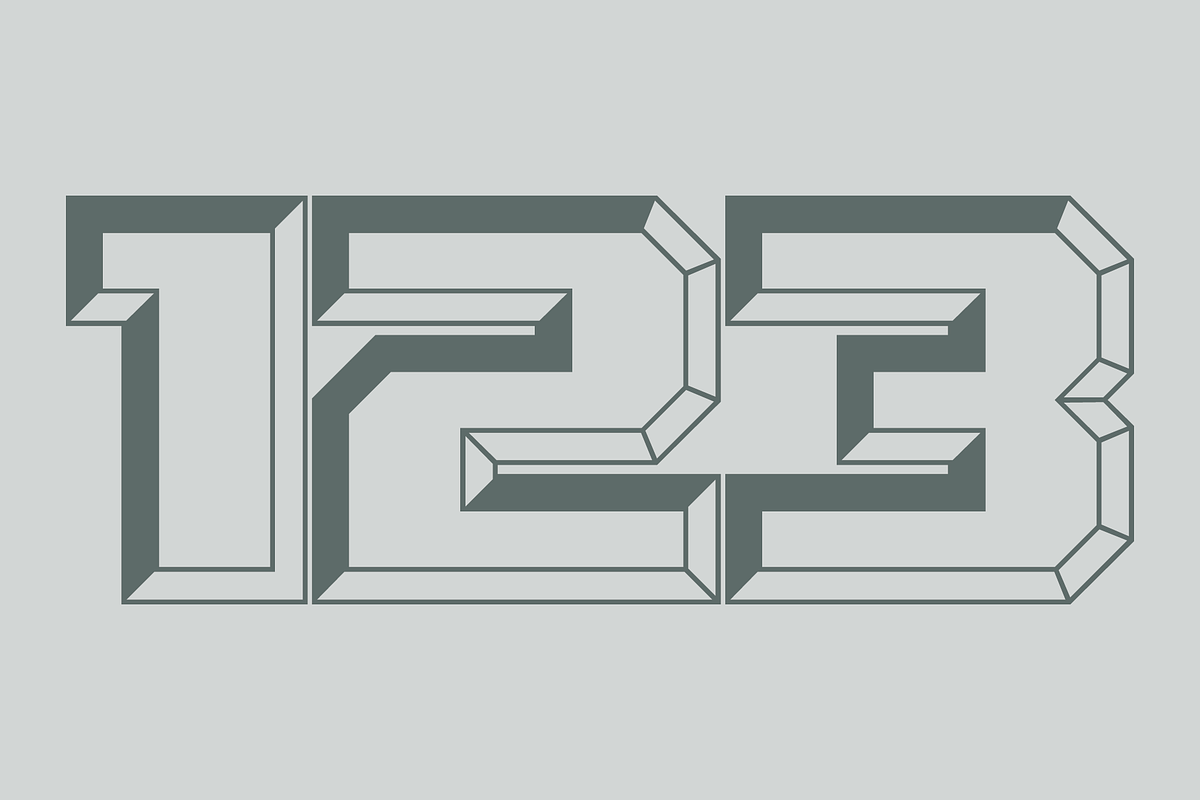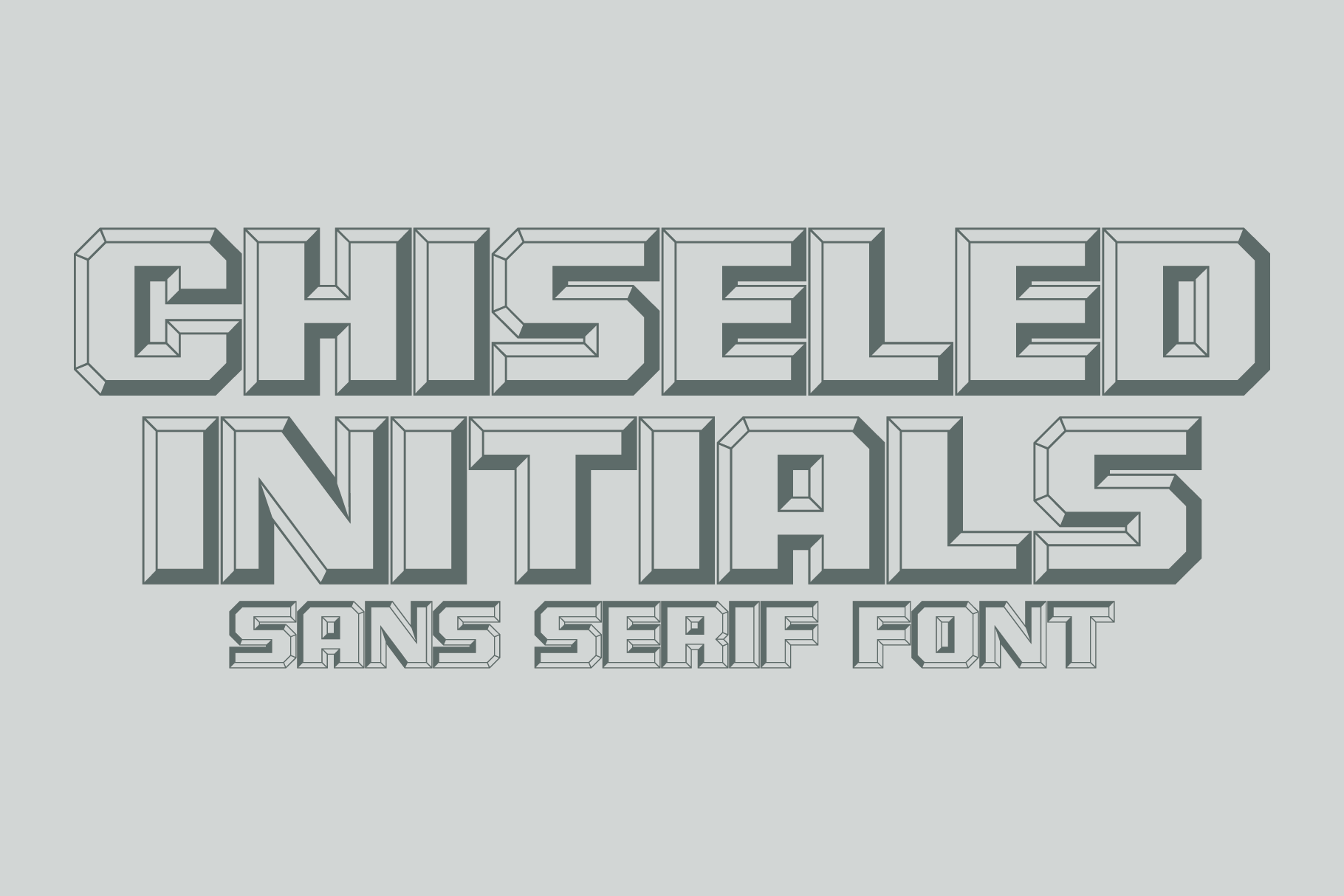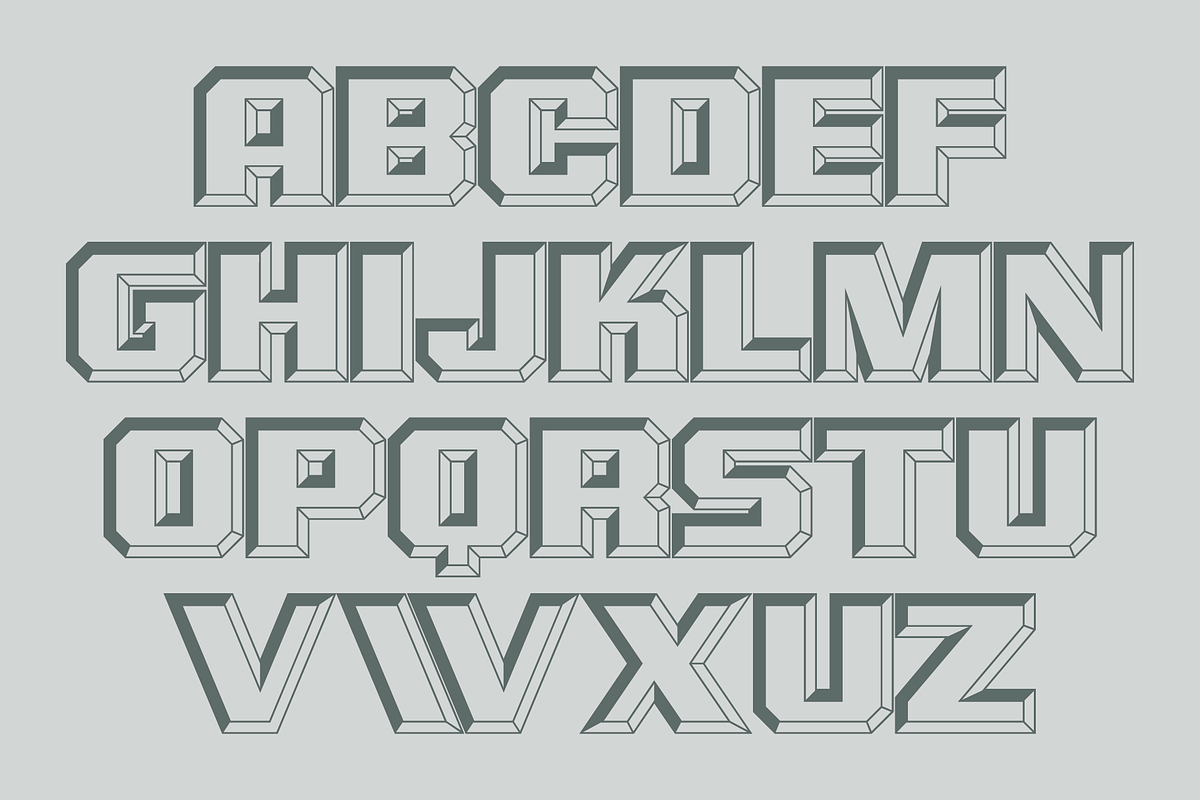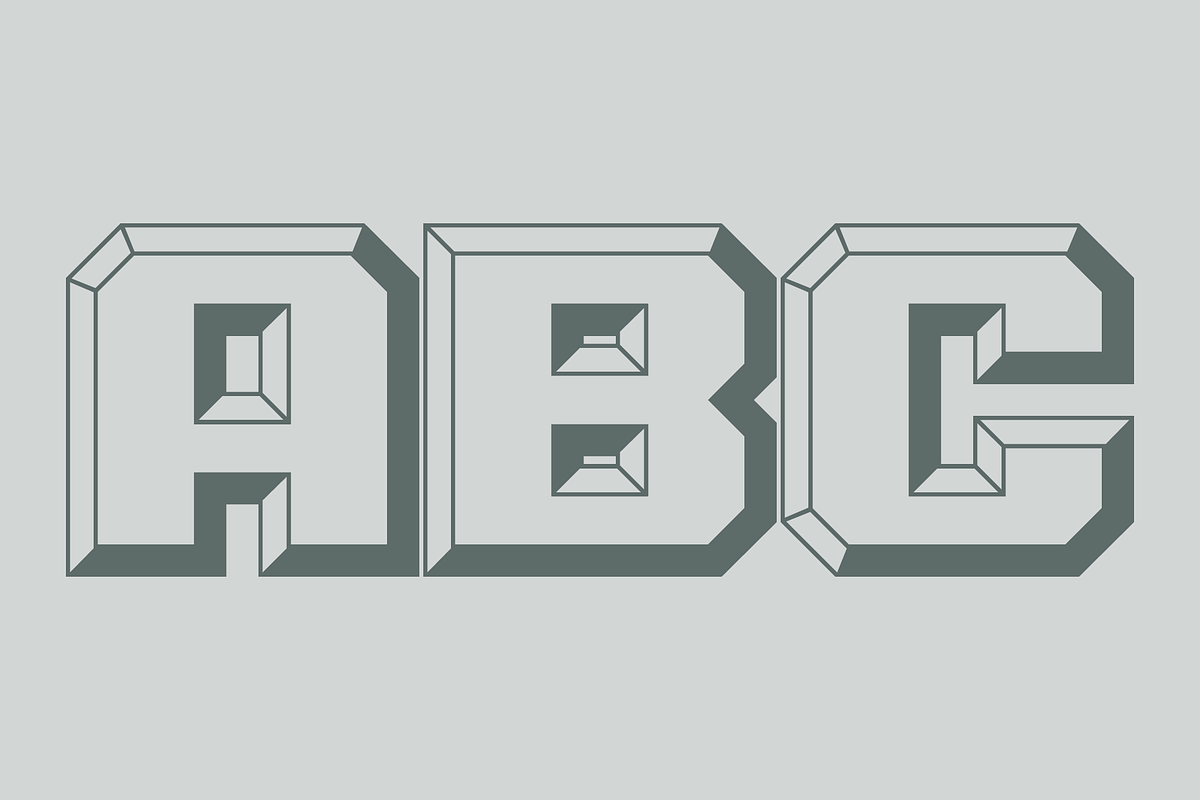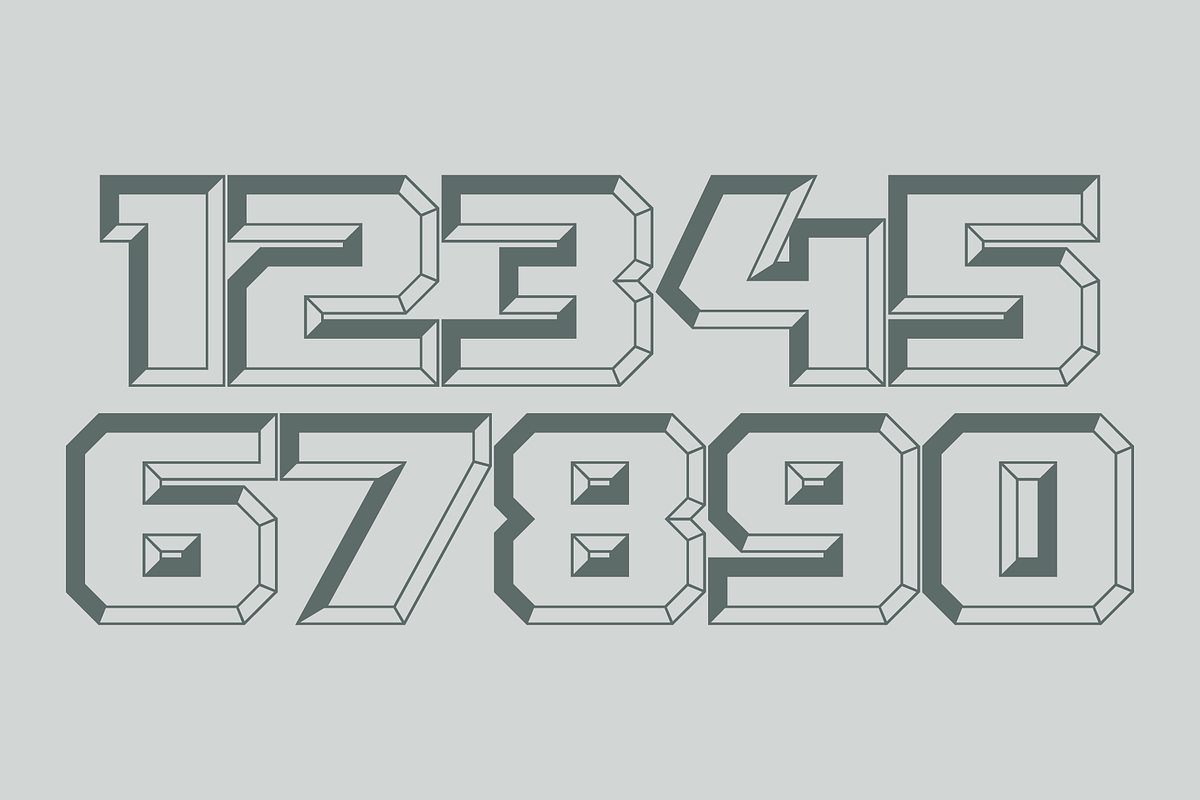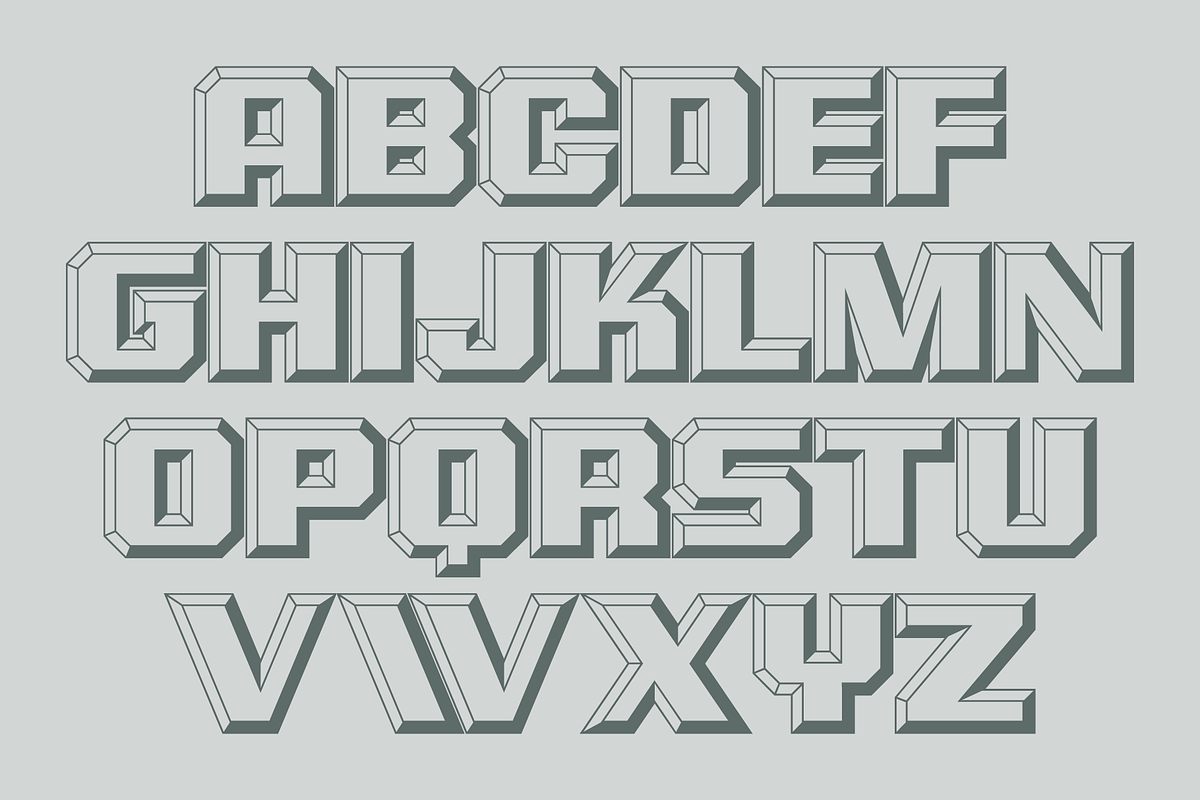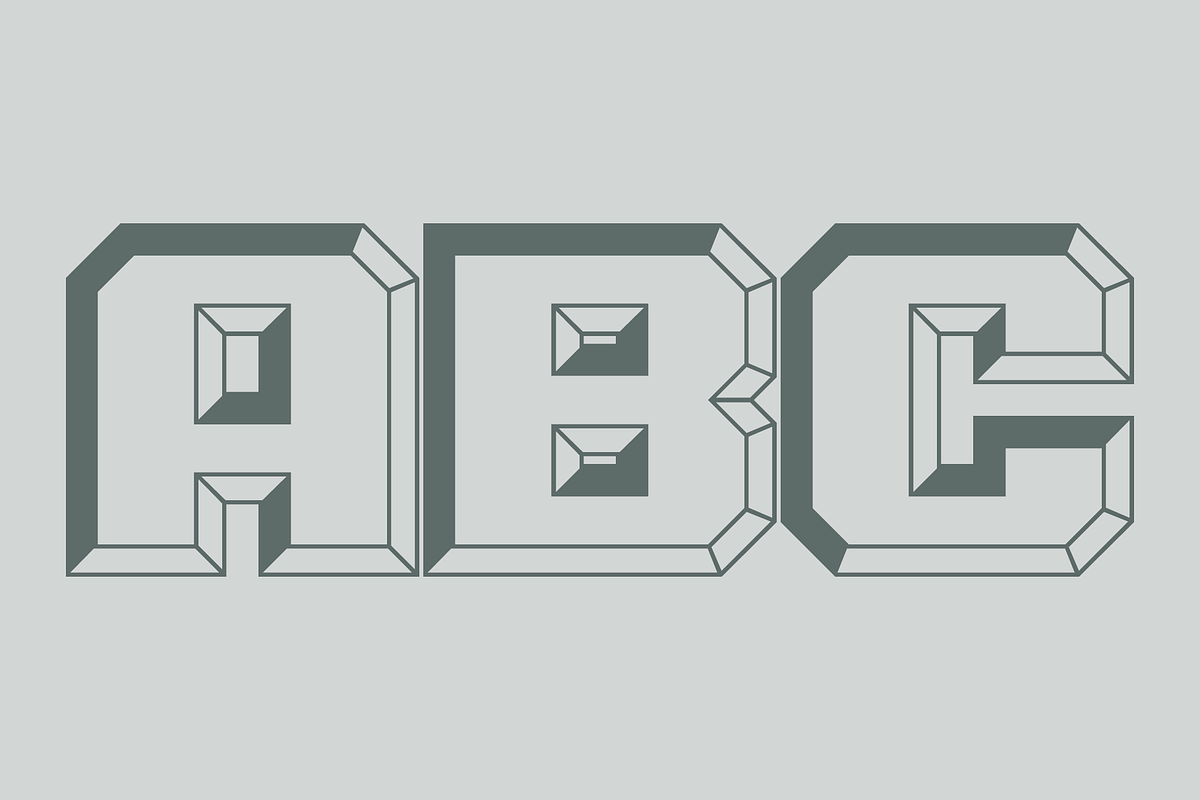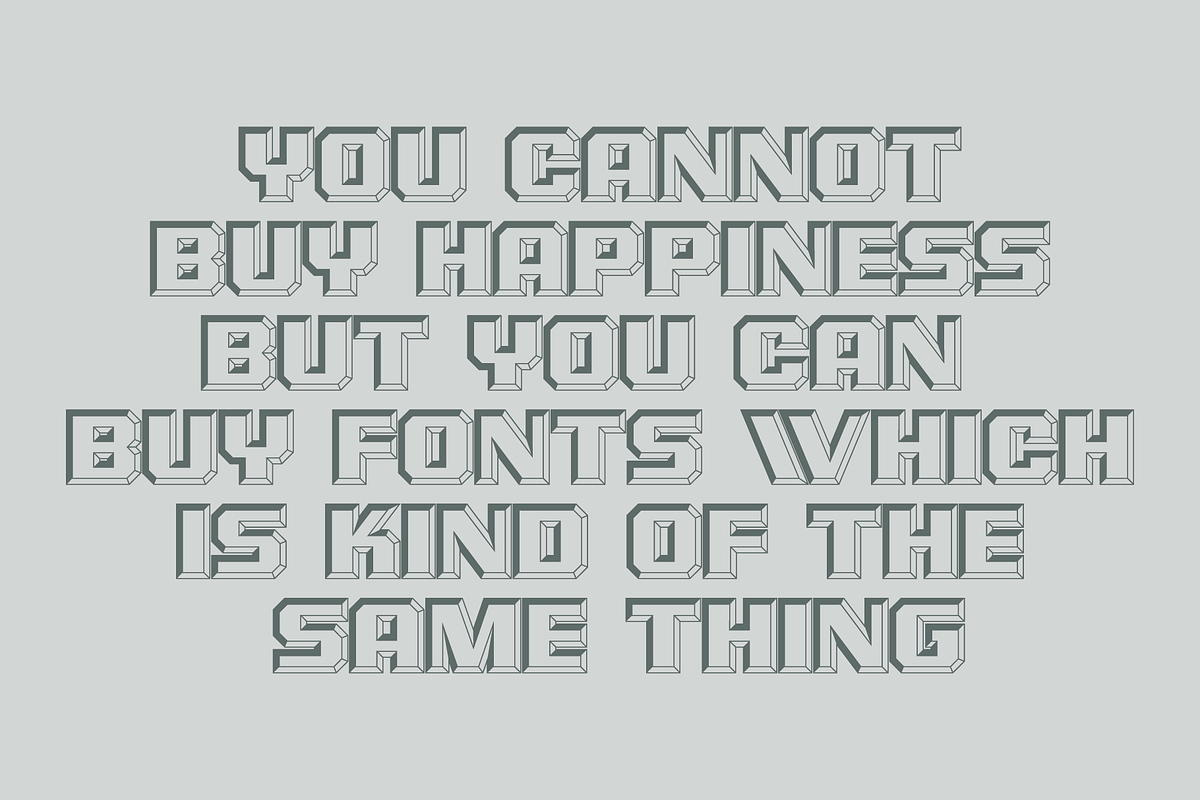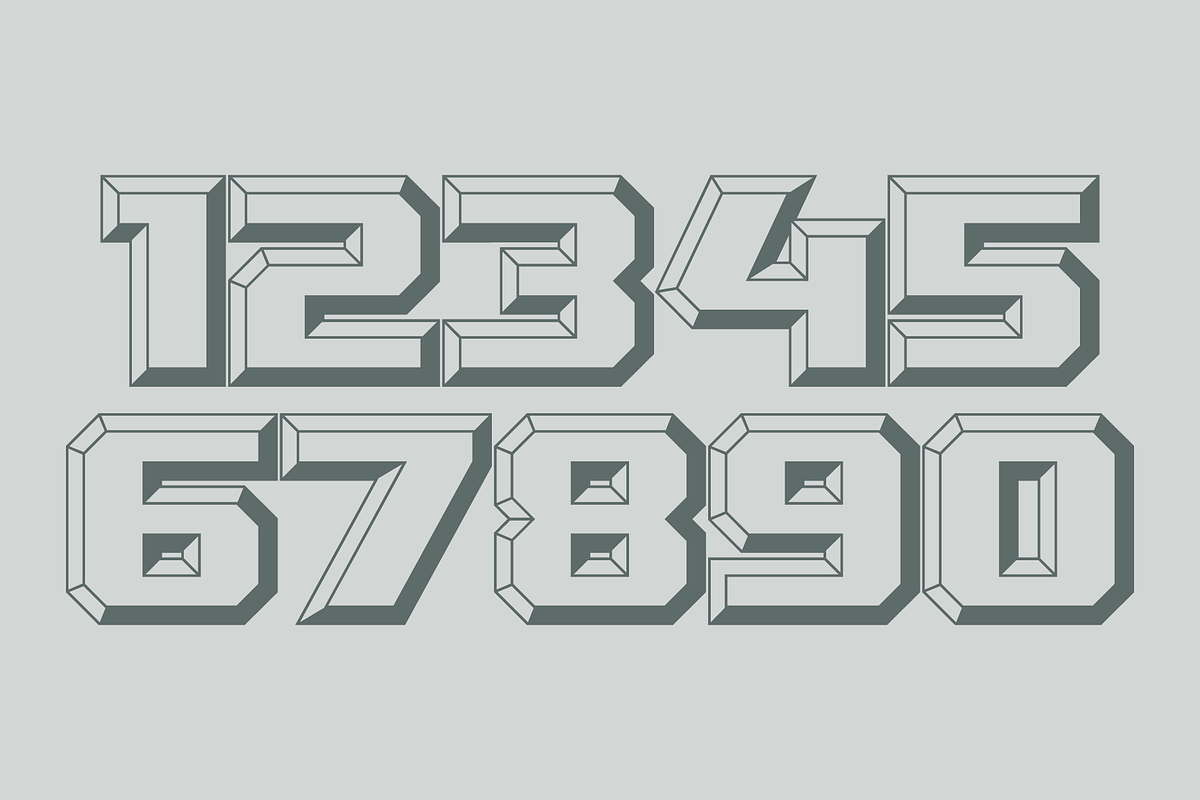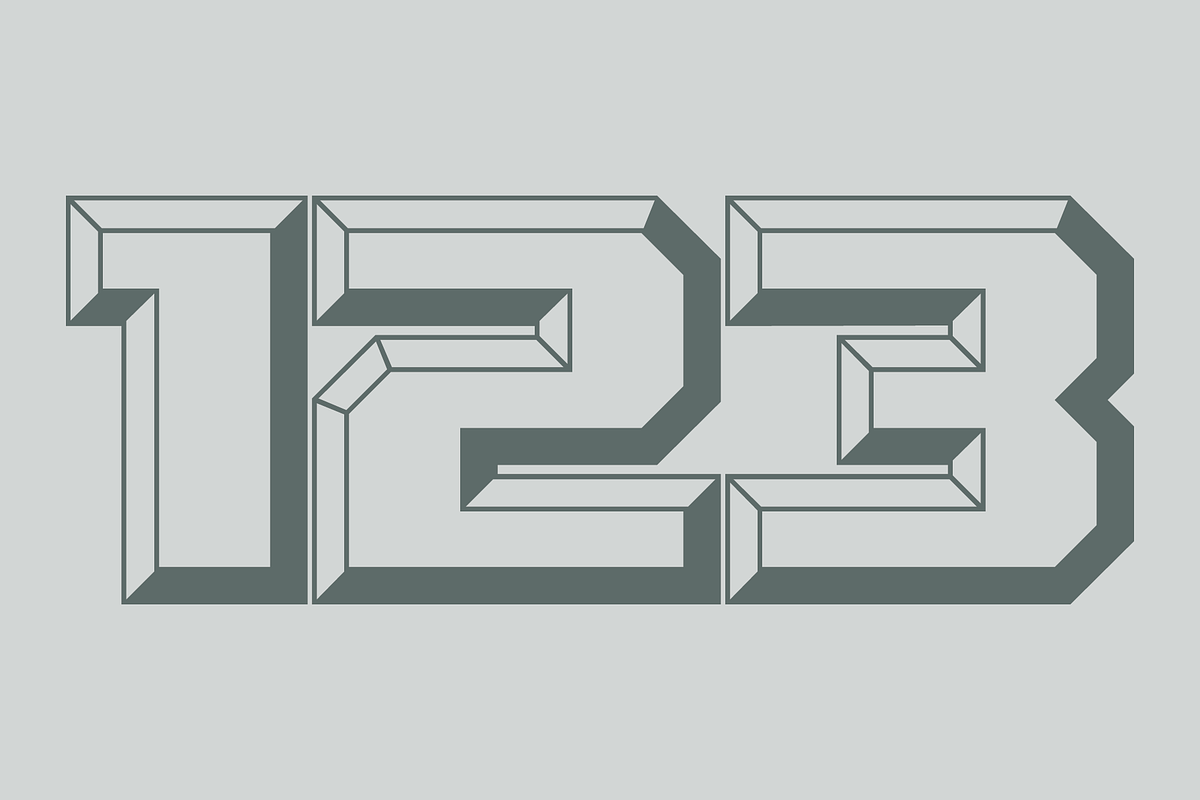
Chiseled Initials - Sans Serif Font
Under the character set are initials that appear to have the background chiseled away so the initial appears protruding. Under the shift + character set the initials appear to be chiseled into the background so the initial appears to be recessed. There are two sets of initials, protruding and recessed, A through Z and 0 through 9 for a total of 72 characters.